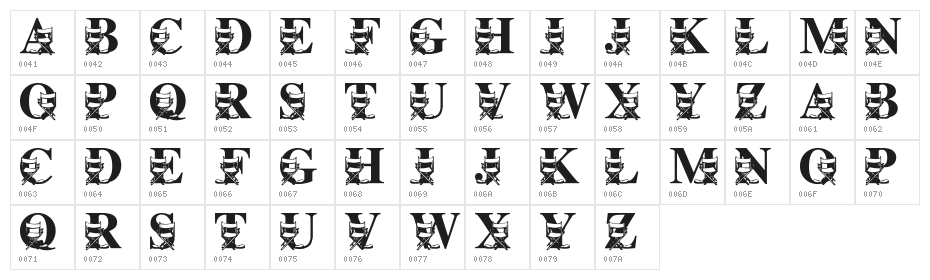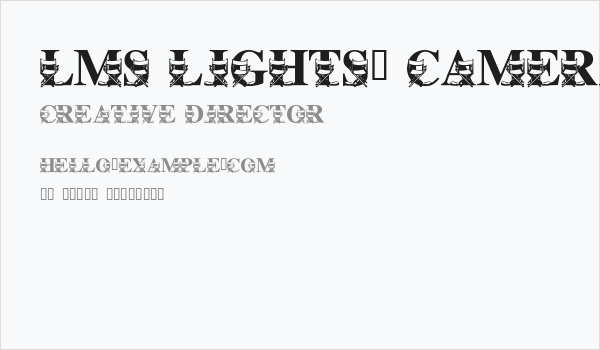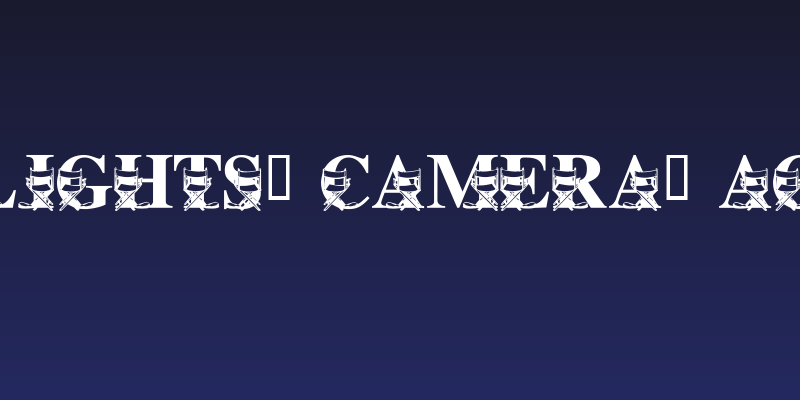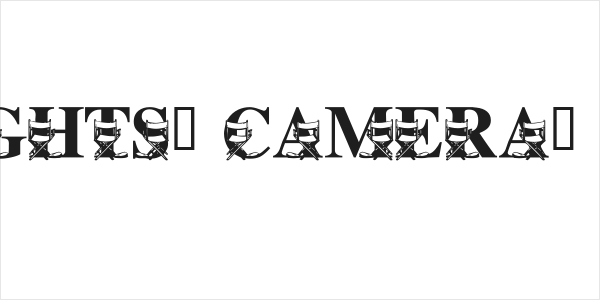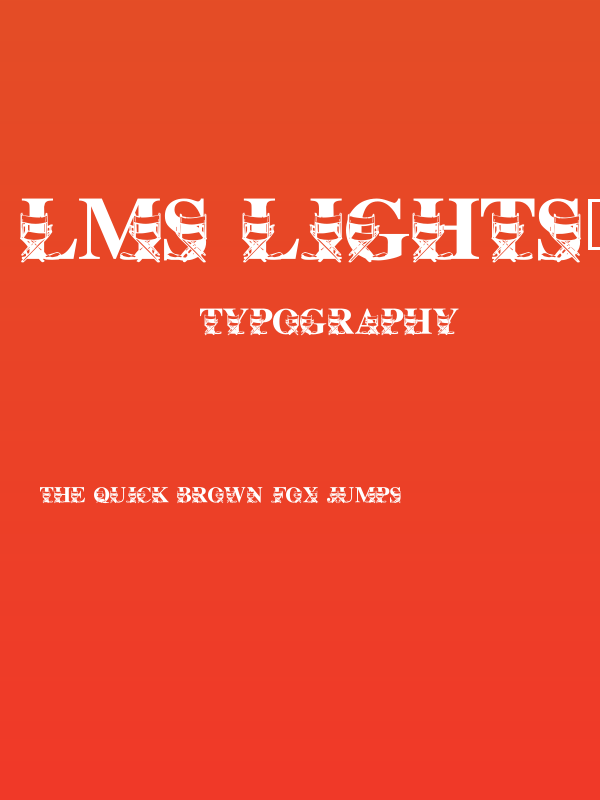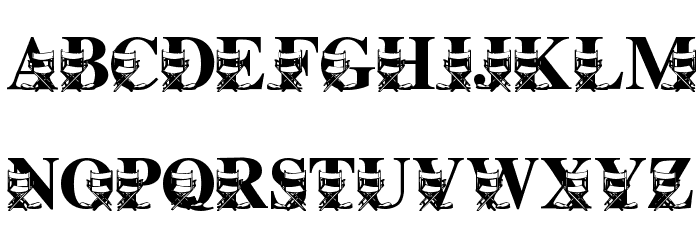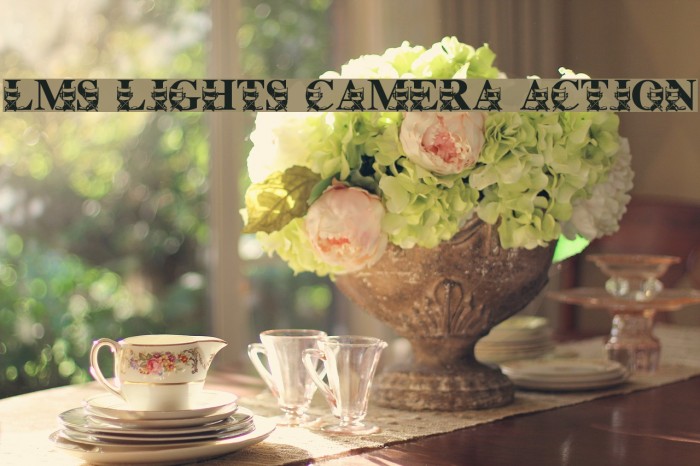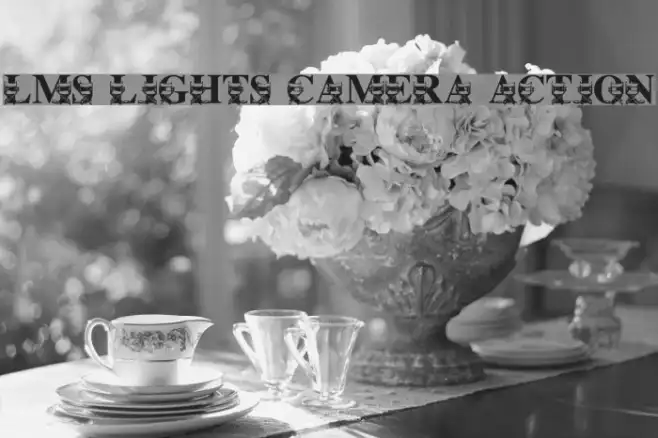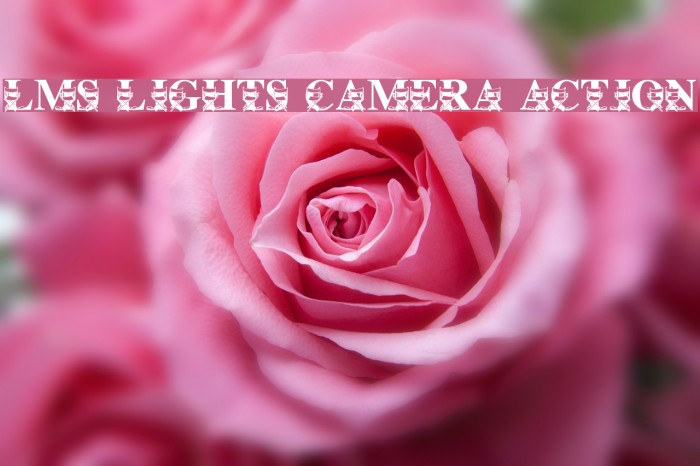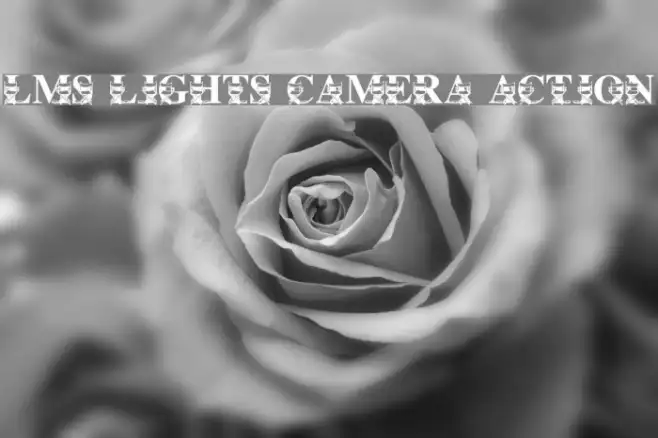
LMS Lights, Camera, Action Font
LMS Lights, Camera, Action Description
This font features a unique and decorative style, incorporating elements reminiscent of film and cinema. Each letter is adorned with intricate designs that resemble director's chairs, creating a thematic connection to the world of movies. The uppercase letters are bold and eye-catching, making them suitable for attention-grabbing headlines or titles. The font's playful and artistic nature makes it ideal for projects that require a touch of creativity and flair. Its distinctive appearance ensures that it stands out, making it perfect for branding, posters, and other visual media related to entertainment or the arts.
| Proposed Projects | Ideal for movie posters, film festival branding, entertainment logos, and creative advertising. |